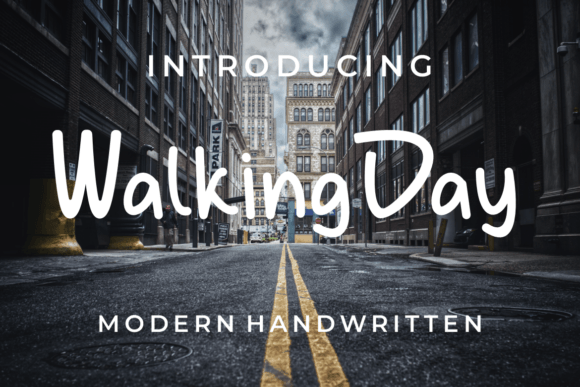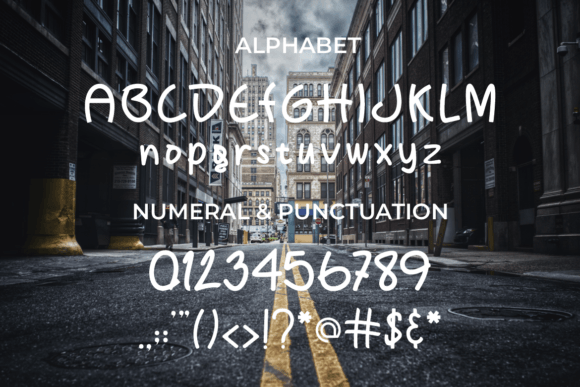
Walking Day Font
About Walking Day Font
Introducing Walking Day, a bold and authentic handwritten font crafted to make a strong statement in your branding projects. Whether you’re designing a logo, working on t-shirt printing, or engaging in export-related projects, Walking Day brings a bold and distinctive touch that stands out across various contexts.
The boldness of Walking Day gives it a strong and impactful presence, making it an excellent choice for branding where you want your message to be noticed and remembered. Its handwritten authenticity adds a personal and human touch, contributing to a unique and genuine visual identity.
Consider Walking Day for a variety of applications, from logo designs that demand attention to t-shirt prints that convey a bold and expressive style. Its versatility allows it to shine in different branding contexts, providing a consistent and memorable look across various platforms.
The authenticity of Walking Day lends itself well to projects where a genuine and handcrafted feel is desired. Whether your brand is in fashion, export, or any other industry, this font is designed to enhance your visual communication with its bold and unique handwriting style.
In essence, Walking Day is more than just a font; it’s a design tool that brings boldness and authenticity to your branding projects. Let it be the striking and handwritten element that makes your brand stand out and leaves a lasting impression in the minds of your audience.